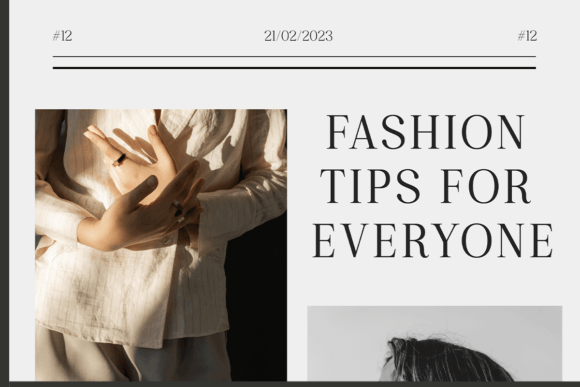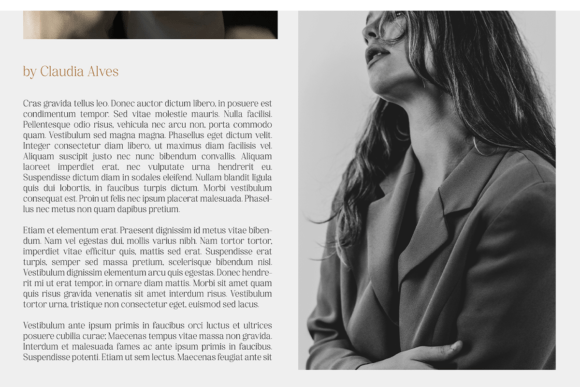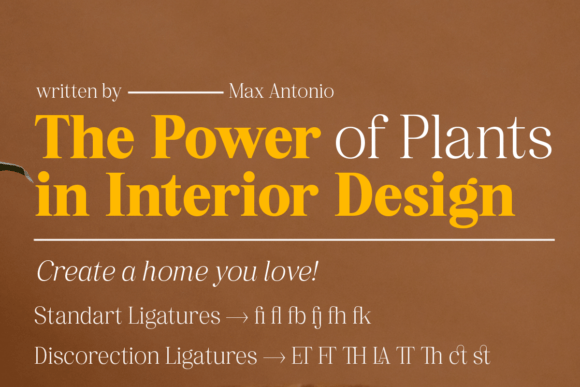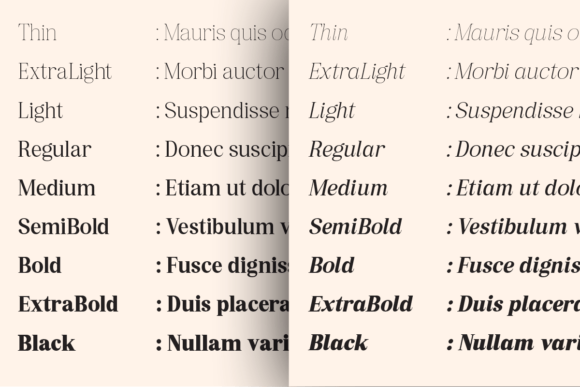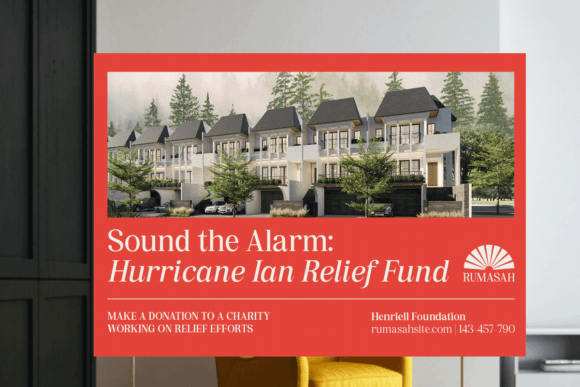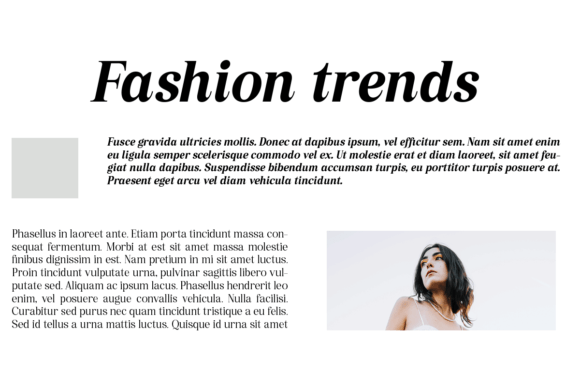
Introduction to Pujarelah Font
Imagine you’re working on a creative project, and you’re struggling to find the perfect font that captures the essence of your vision. You’ve spent hours browsing through free download resources, only to be left with a font that’s either too plain or too overwhelming. But what if you could have it all – elegance, sophistication, and versatility, all in one font family?
Enter Pujarelah Font, a modern serif font family that’s designed to elevate your design projects to the next level. With 9 weight styles and 9 italics to choose from, you can mix and match to create a look that’s uniquely yours. Whether you’re working on a formal invitation, a magazine cover, or a packaging design, Pujarelah Font is the perfect design resource to help you achieve your creative vision.
As a designer, you know how valuable it is to have access to high-quality design resources like Pujarelah Font. With its transparent background and customizable weights, you can create a look that’s both timeless and modern. In this article, we’ll explore the world of Pujarelah Font and show you why it’s a must-have in your design arsenal.
Key Features of Pujarelah Font
- High-quality design resource ideal for creative projects requiring a unique and stylish touch.
- Features a transparent background, allowing for effortless layering and customization in your design project.
- Designed to be versatile and adaptable, making it suitable for a wide range of creative applications, from digital art to print media.
- Includes a comprehensive set of characters, including uppercase and lowercase letters, numbers, and special characters.
Honest Review: Pujarelah Font
I recently stumbled upon the Pujarelah Font, and I must say it’s been a great addition to my design arsenal. ✨ The font’s unique blend of modern and traditional elements makes it perfect for creative projects that require a touch of elegance and sophistication.
The Pujarelah Font also features a transparent background, which is ideal for graphic designers who need to create images with a subtle, non-distracting background. Additionally, the font is available in high quality, ensuring that it looks crisp and clear even when scaled up or down.
- Unique blend of modern and traditional elements
- High quality
- ⚠️ May not be suitable for projects that require a bold, attention-grabbing font
Overall, I’m impressed with the Pujarelah Font. It’s a great resource for designers who need a high-quality font that’s both elegant and versatile. With its unique blend of modern and traditional elements, it’s perfect for a wide range of creative projects.
Getting the Most Out of Pujarelah Font
To get the most out of the Pujarelah Font, use it in creative projects such as logos, posters, and infographics. The font’s high quality and transparent background make it ideal for use in a variety of design applications.
The Pujarelah Font is commonly used in:
- Poster design
- Brand identity design